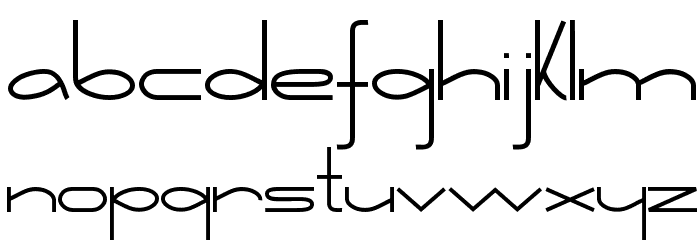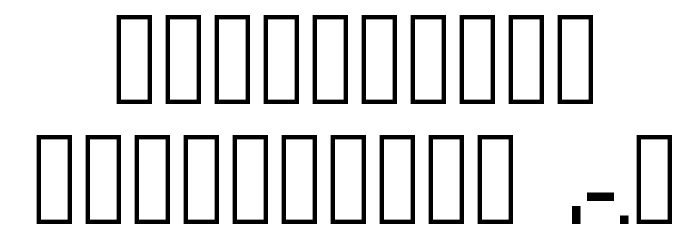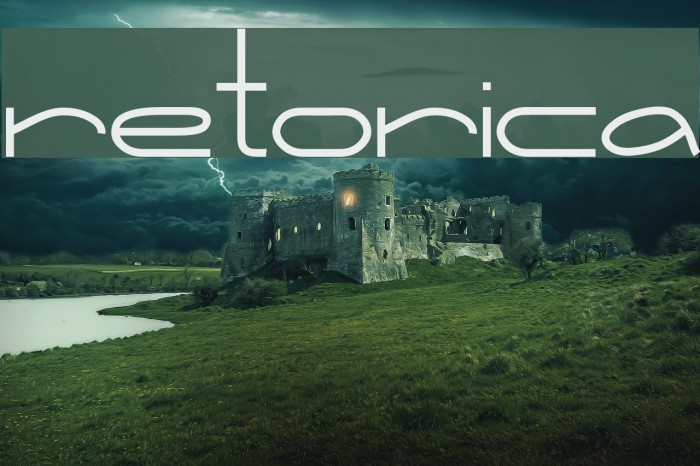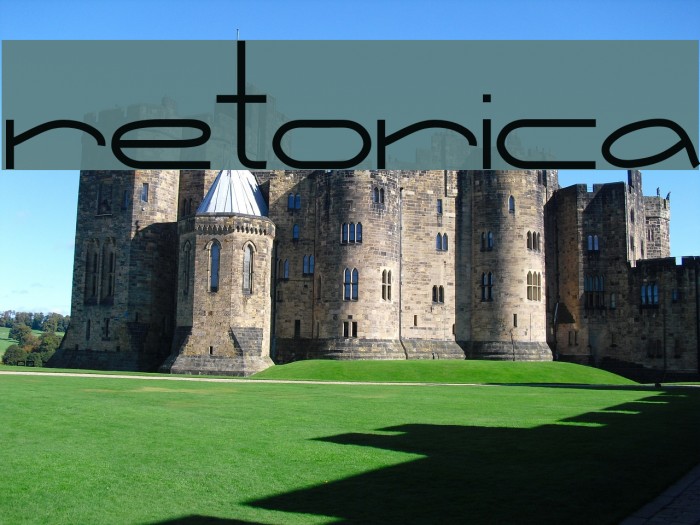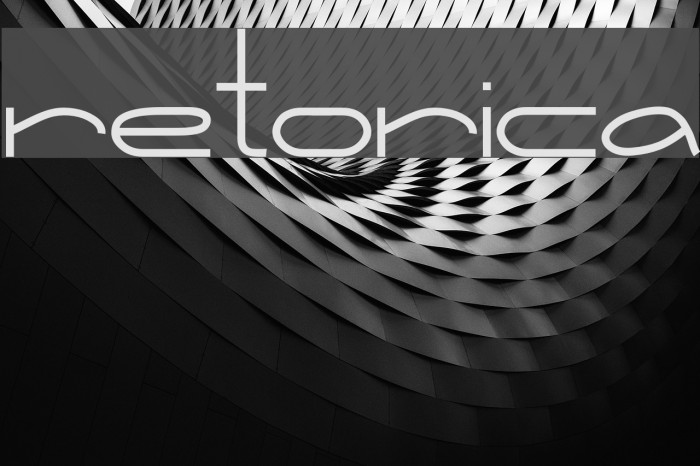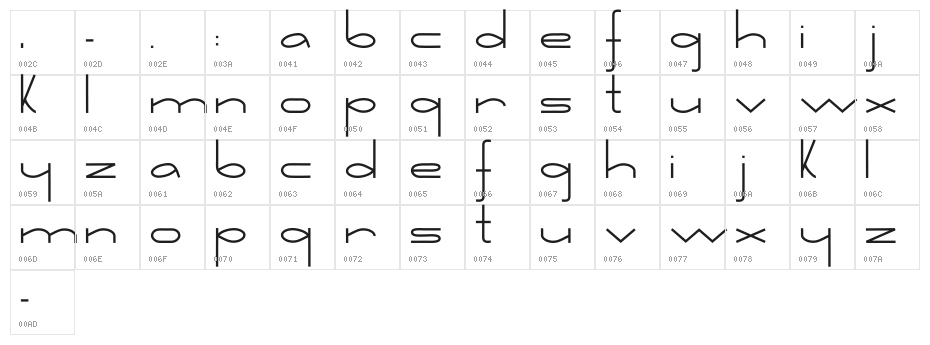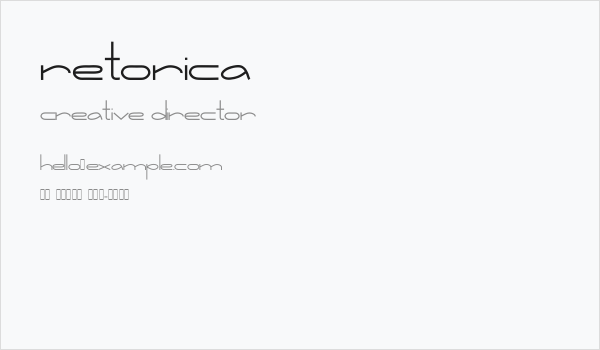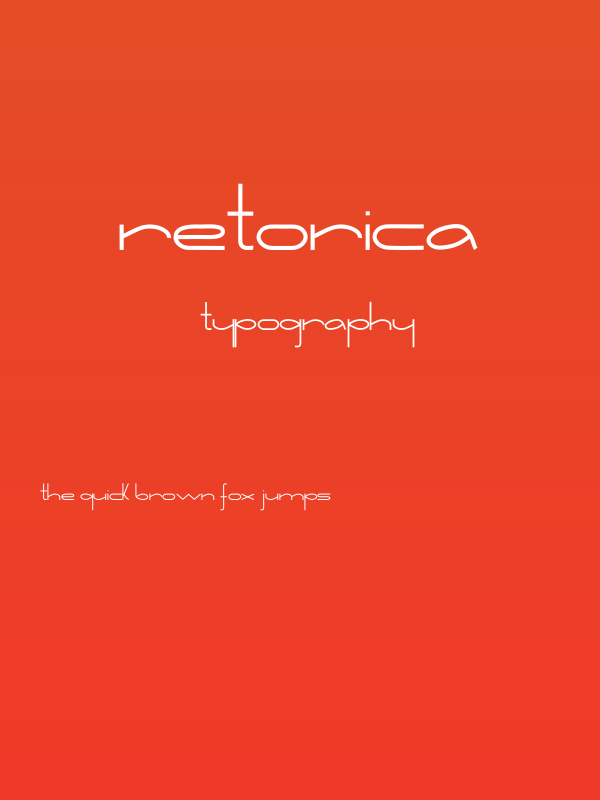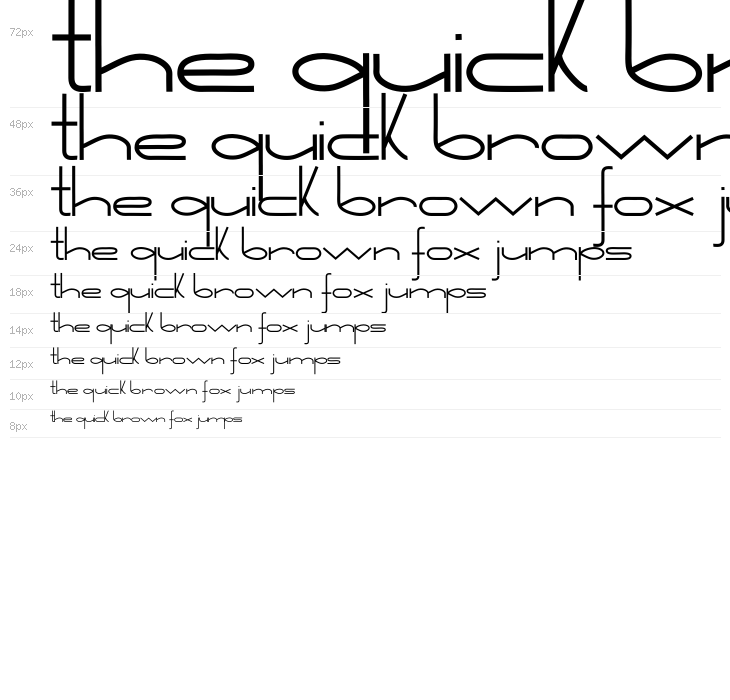
Retorica Font
This font features a modern, geometric design with clean lines and a minimalist aesthetic. The characters are constructed with a consistent stroke width, giving it a uniform appearance. The uppercase and lowercase letters maintain a similar height, creating a harmonious look. The numerals and special characters are designed to match the overall style, ensuring a cohesive visual presentation. The font's simplicity and clarity make it suitable for a variety of design applications, from digital interfaces to print media.
A modern, geometric font with clean lines and a minimalist style.
- Proposed Projects: Ideal for tech branding, digital interfaces, modern posters, and minimalist design projects.
- Use Case: Headlines, Logos, Digital interfaces